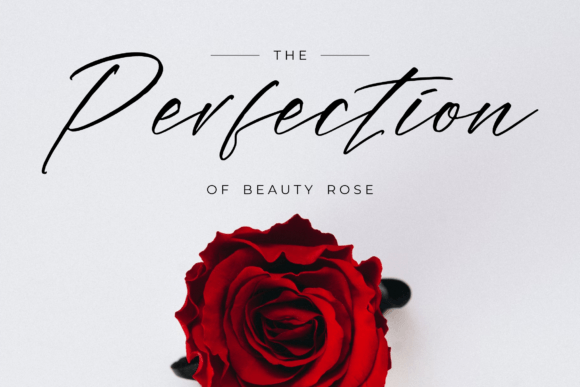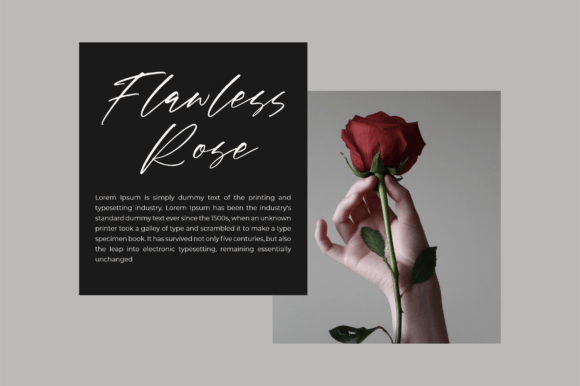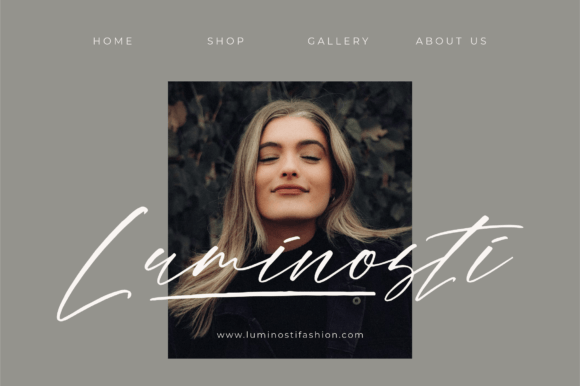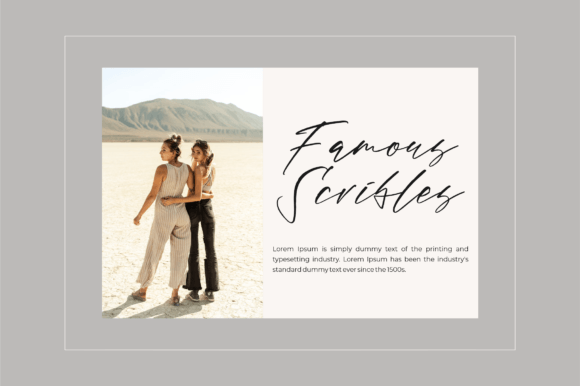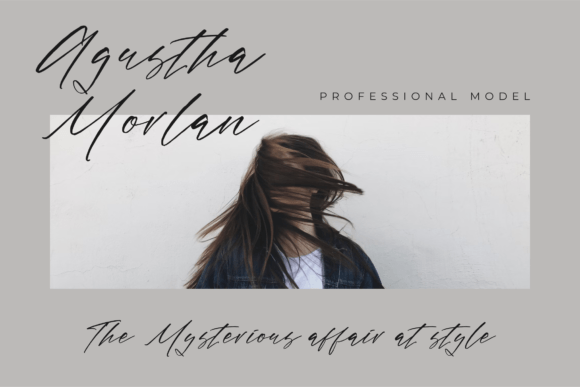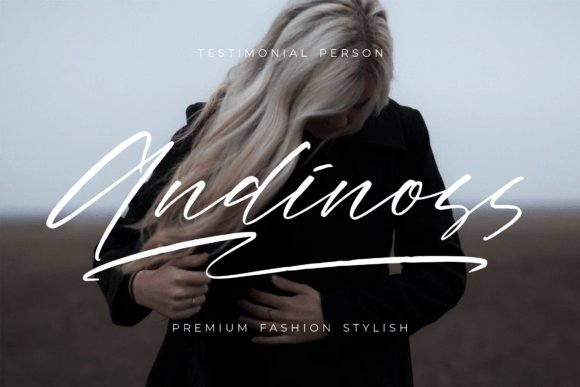
Ah, the quest for the perfect font – a journey familiar to many designers, crafters, and creative hobbyists. I recall a particularly frustrating project where the font was the make-or-break element. My client needed a sophisticated, elegant script font that would elevate their brand. After hours of scouring font libraries, I stumbled upon Blushelom Portnight from Letterfabric Studio. It was love at first sight! ✨
An Honest Review of Blushelom Portnight
- 💫 Elegant and Modern: Blushelom Portnight exudes sophistication and style, perfect for high-end branding and designs.
- ✅ Versatile: Suitable for a wide range of projects, from logos and product packaging to quotes, posters, and more.
- 🌈 Beautiful Script Taste: The font’s script style adds a touch of elegance and whimsy to any design.
- 👍 Easy to Read: Despite its elegant nature, Blushelom Portnight remains clear and readable, even at smaller sizes.
While Blushelom Portnight is an excellent font, there are a few minor considerations:
- 🤔 Limited Use in Body Text: Due to its script nature, Blushelom Portnight might not be the best choice for lengthy body text. It’s ideal for headlines, titles, and short paragraphs.
- ⚠️ Requires Attention to Kerning: As with many script fonts, kerning can be a bit tricky. Make sure to adjust the kerning to ensure optimal readability and aesthetics.
- Experiment with OpenType features, such as ligatures and stylistic alternates, to add more flair to your design.
- Explore the various stylistic alternates and glyphs to add personality to your design.
The Story Behind Blushelom Portnight
Blushelom Portnight was crafted with love by the talented team at Letterfabric Studio. While the exact story behind the font’s creation is unknown, it’s clear that the designers aimed to create a modern, elegant script font that would inspire creativity and sophistication. The result is a beautiful, versatile font that’s perfect for a wide range of design projects.
Q: What type of projects is Blushelom Portnight suitable for?
A: Blushelom Portnight is suitable for a variety of projects, including logos, branding, homeware designs, product packaging, mugs, quotes, posters, shopping bags, t-shirts, book covers, name cards, invitation cards, greeting cards, labels, photography, watermarks, and more.